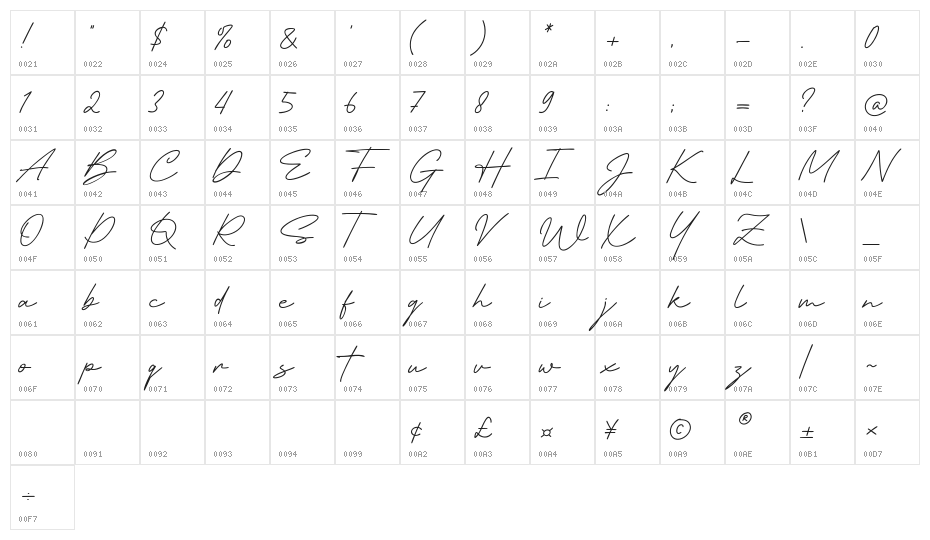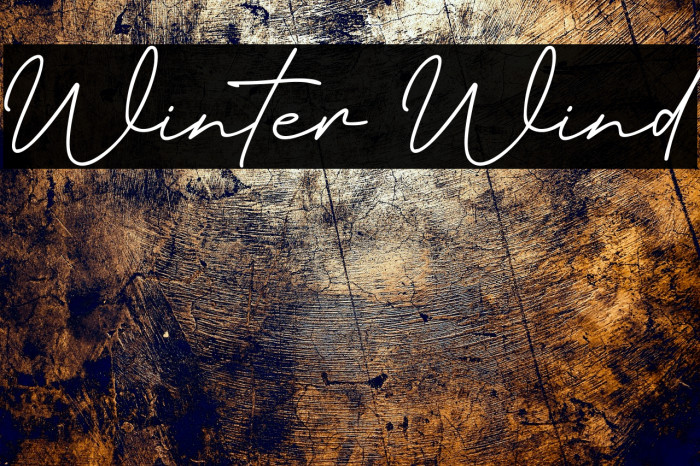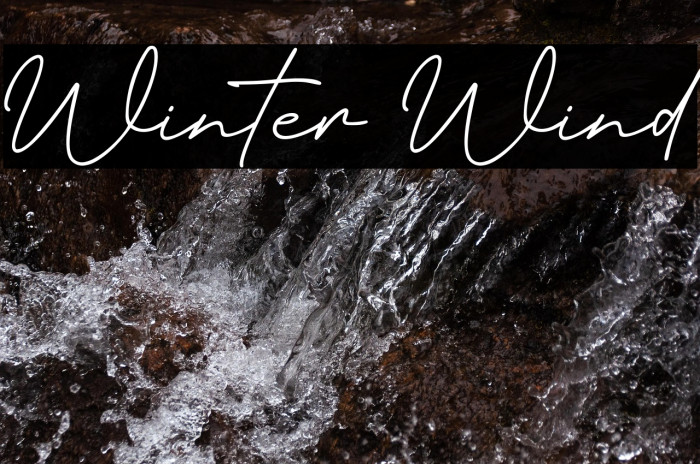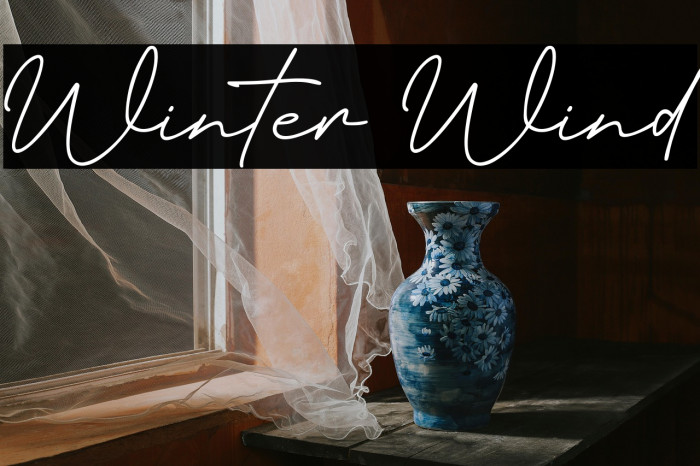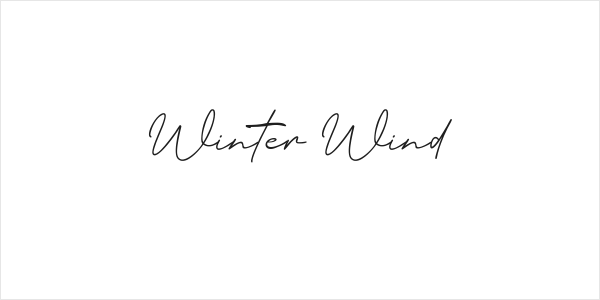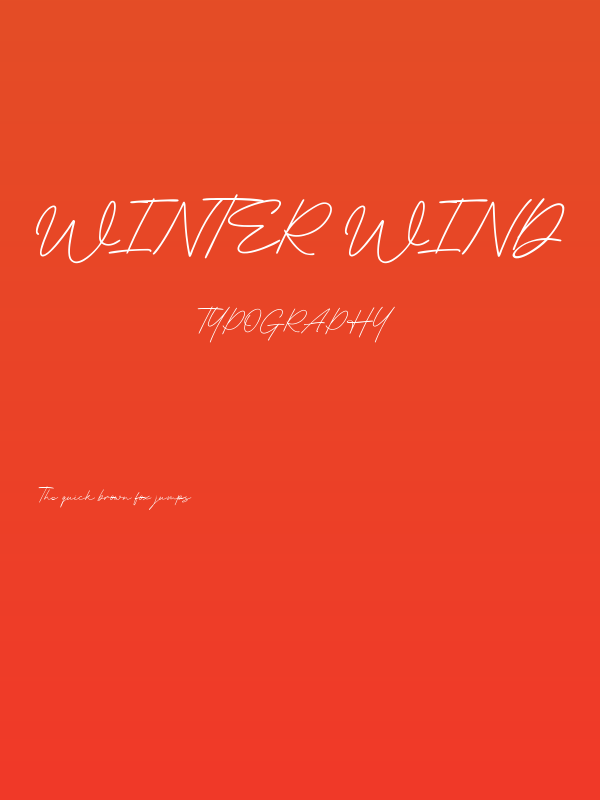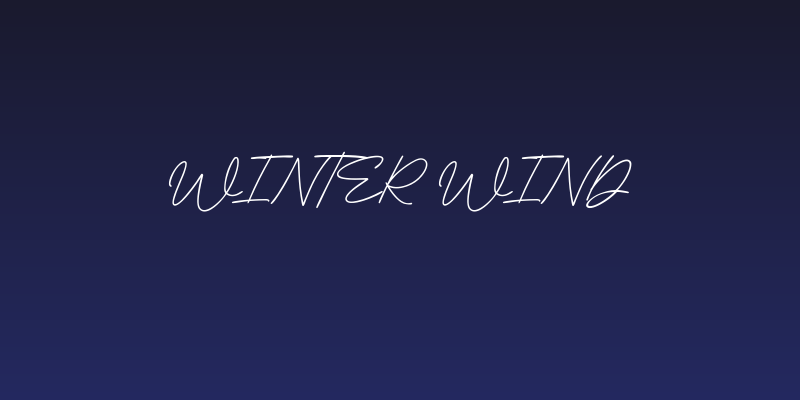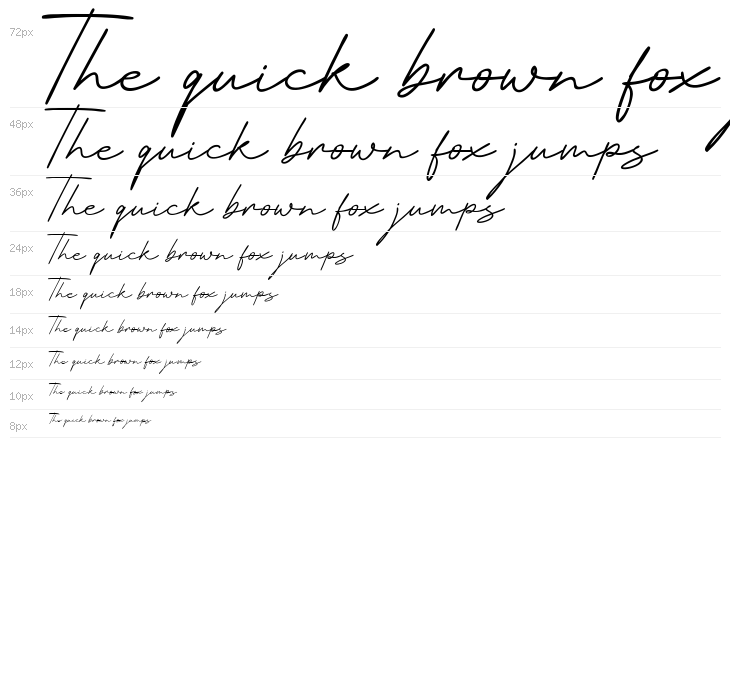
Winter Wind Font
Winter Wind Description
This font features a flowing, cursive style that mimics elegant handwriting. The characters are connected, giving it a seamless and fluid appearance. The strokes are smooth and slightly varied in thickness, adding a natural and personal touch. The uppercase letters are tall and slender, while the lowercase letters maintain a consistent baseline, enhancing readability. Numbers and special characters follow the same cursive style, ensuring uniformity across all elements. This font exudes a sense of sophistication and grace, making it suitable for projects that require a personal or artistic flair.
| Overall Style | Elegant, Handwritten |
| Use Case | Logos, Invitations, Artistic projects |
| Proposed Projects | Ideal for wedding invitations, personal letters, artistic projects, and branding materials that require a personal touch. |